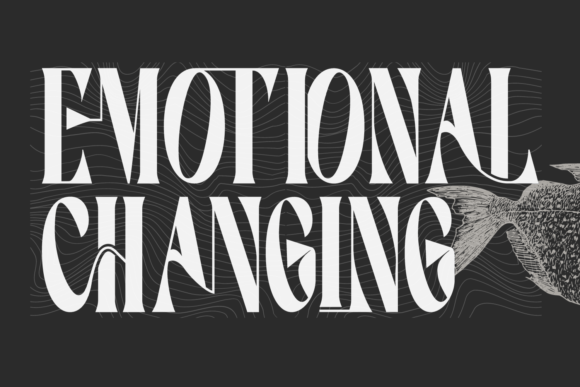
Introducing Emotional Changing Font, the condensed serif font that will inject a touch of confidence and charisma into your designs. This high-contrast display typeface is perfect for making a bold statement in headlines, logos, and short paragraphs.
With its heavy weight and condensed form, Emotional Changing Font exudes a sense of strength and self-assurance. The carefully crafted ligatures and stylistic alternates provide endless possibilities for customization, allowing you to create truly unique and eye-catching layouts.
Whether you're crafting a captivating brand identity, designing an attention-grabbing poster, or creating a website that demands attention, Emotional Changing Font is the perfect choice. Its condensed design allows for maximum impact even in limited spaces, making it ideal for headlines and subheads.
Feel the power of condensed confidence with Emotional Changing Font. Use it to create designs that speak volumes without saying a word.